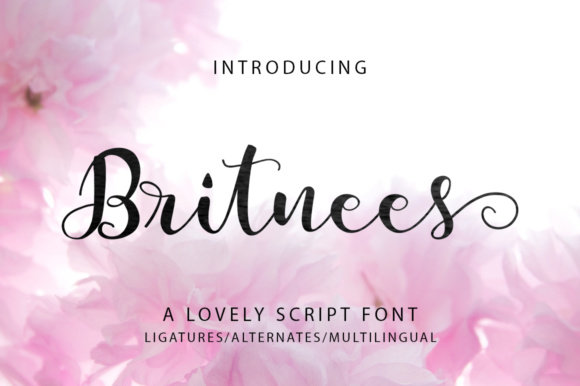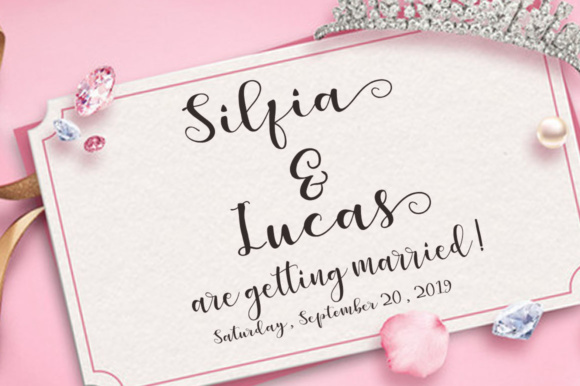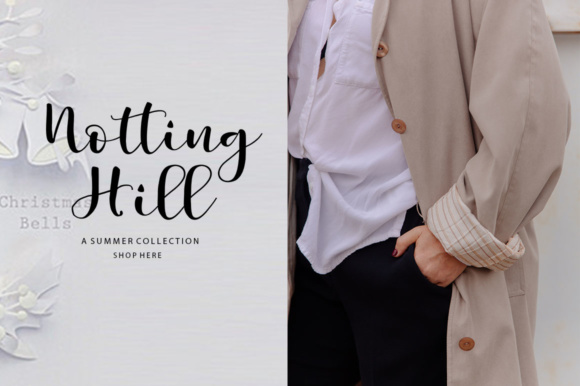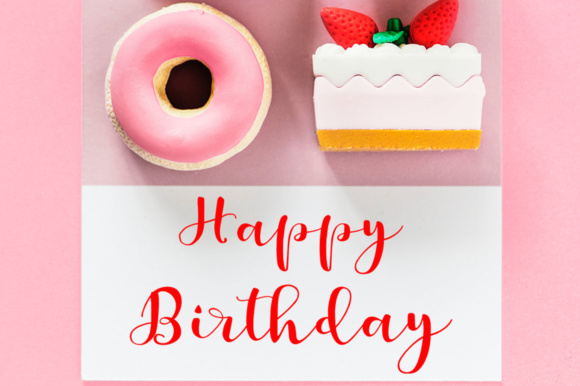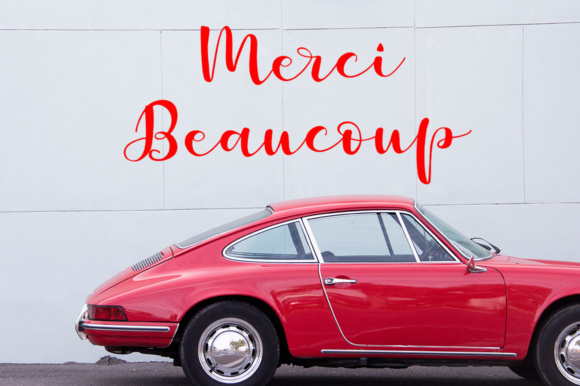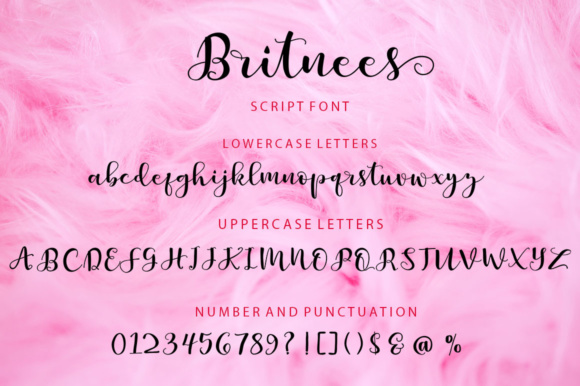
Britnees Script Font
About Britnees Script Font
The Britnees Script is a new, modern script font with an irregular baseline and a trendy and feminine style. Britnees looks lovely on wedding invitations, thank you cards, quotes, greeting cards, logos, business cards and more. Perfect for using in ink or watercolor.